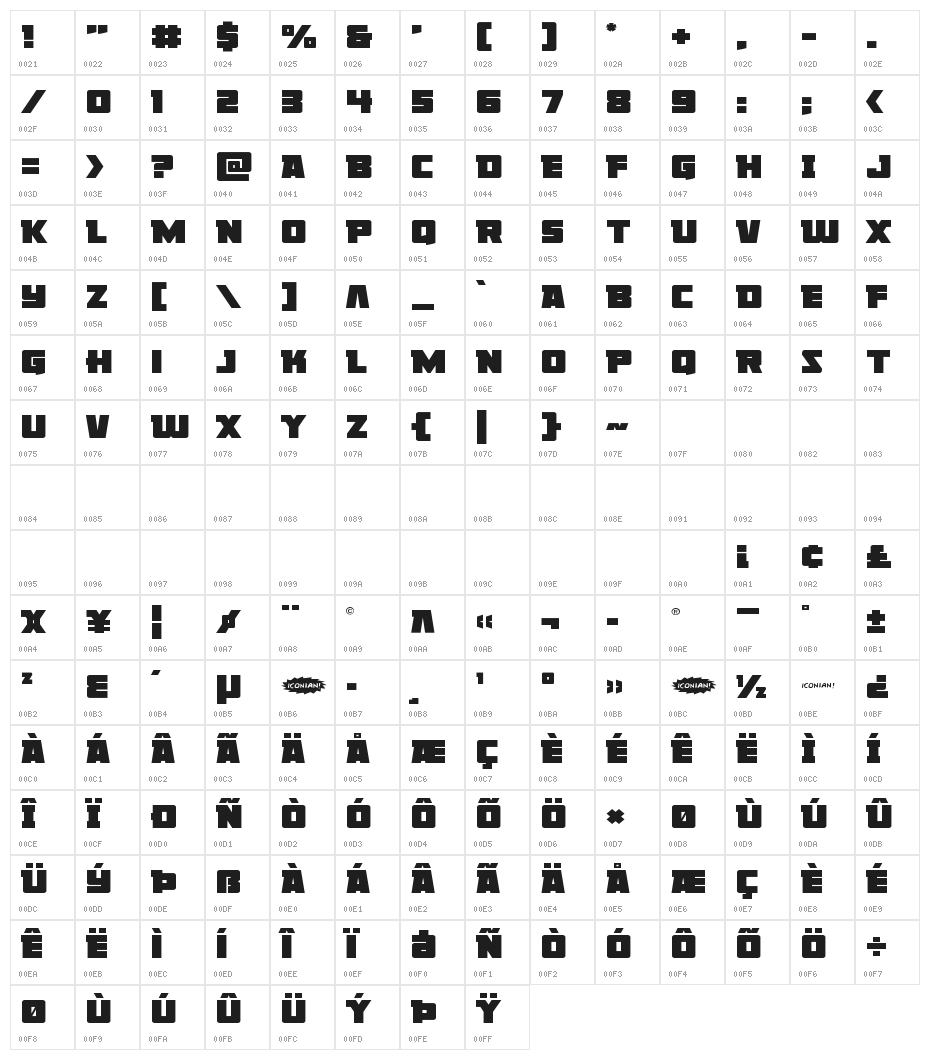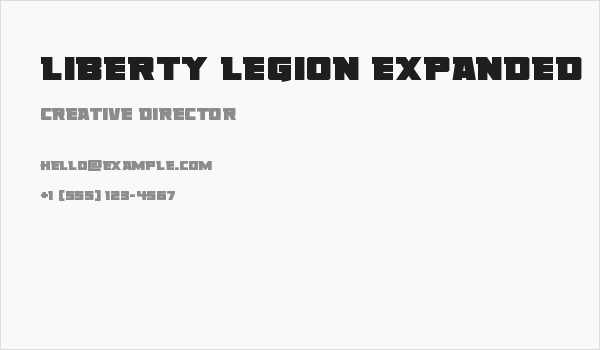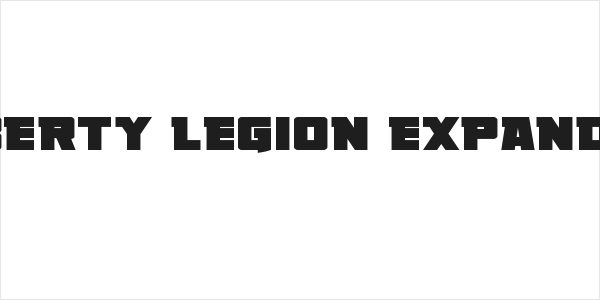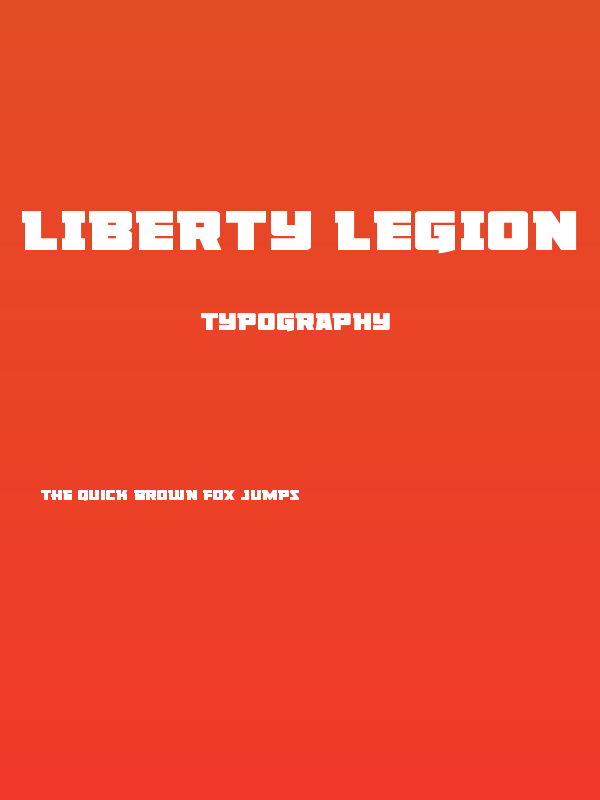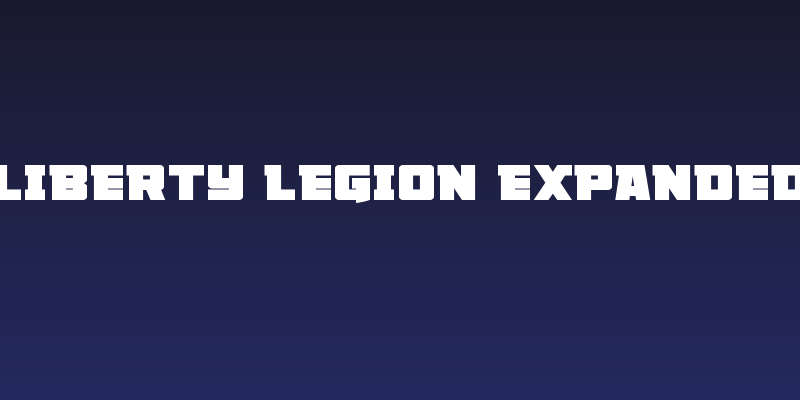
Liberty Legion Expanded Font
Liberty Legion Expanded Description
This bold and striking font features a strong, geometric design with a distinctly modern flair. The characters are wide and expansive, with sharp angles and clean lines that convey a sense of power and authority. The uppercase letters are particularly prominent, making a strong visual impact. The numbers and special characters maintain the same boldness, ensuring consistency across all text. The font's style is reminiscent of military or industrial themes, making it ideal for projects that require a commanding presence.
| Proposed Projects | Ideal for use in posters, headlines, branding, and any design that requires a strong, impactful typeface. |